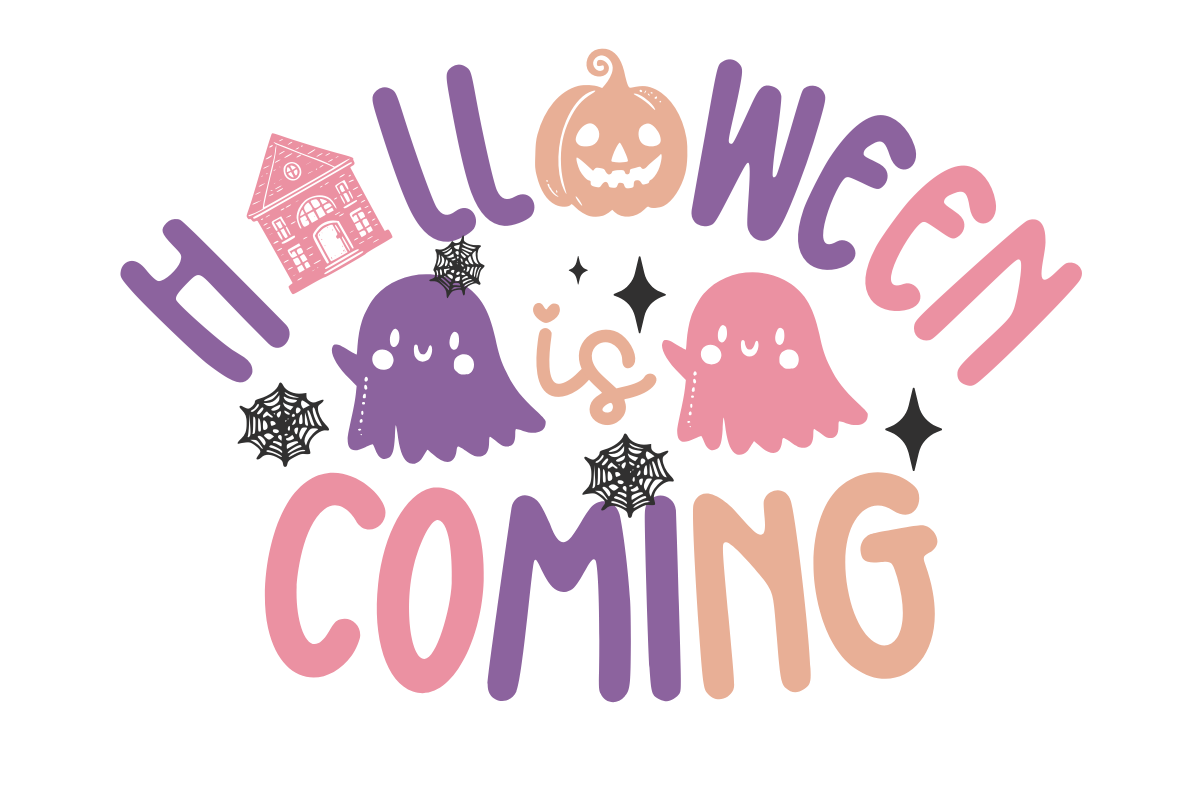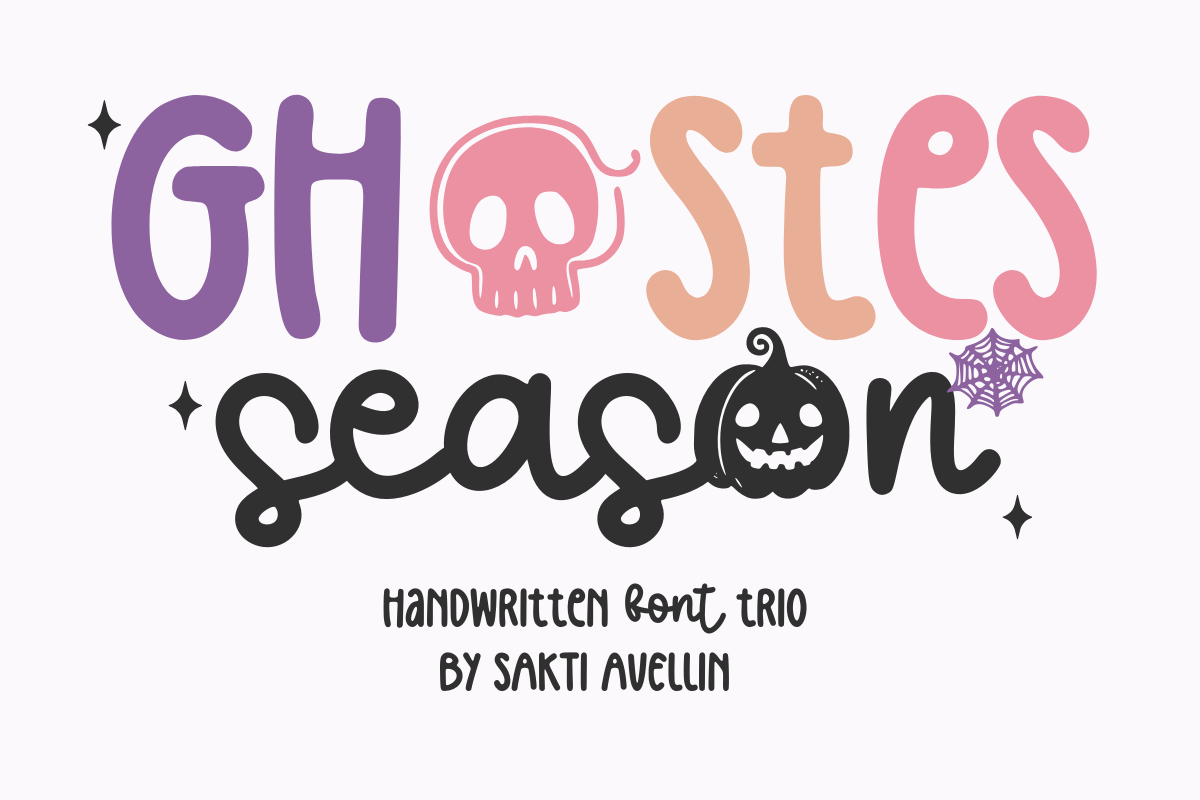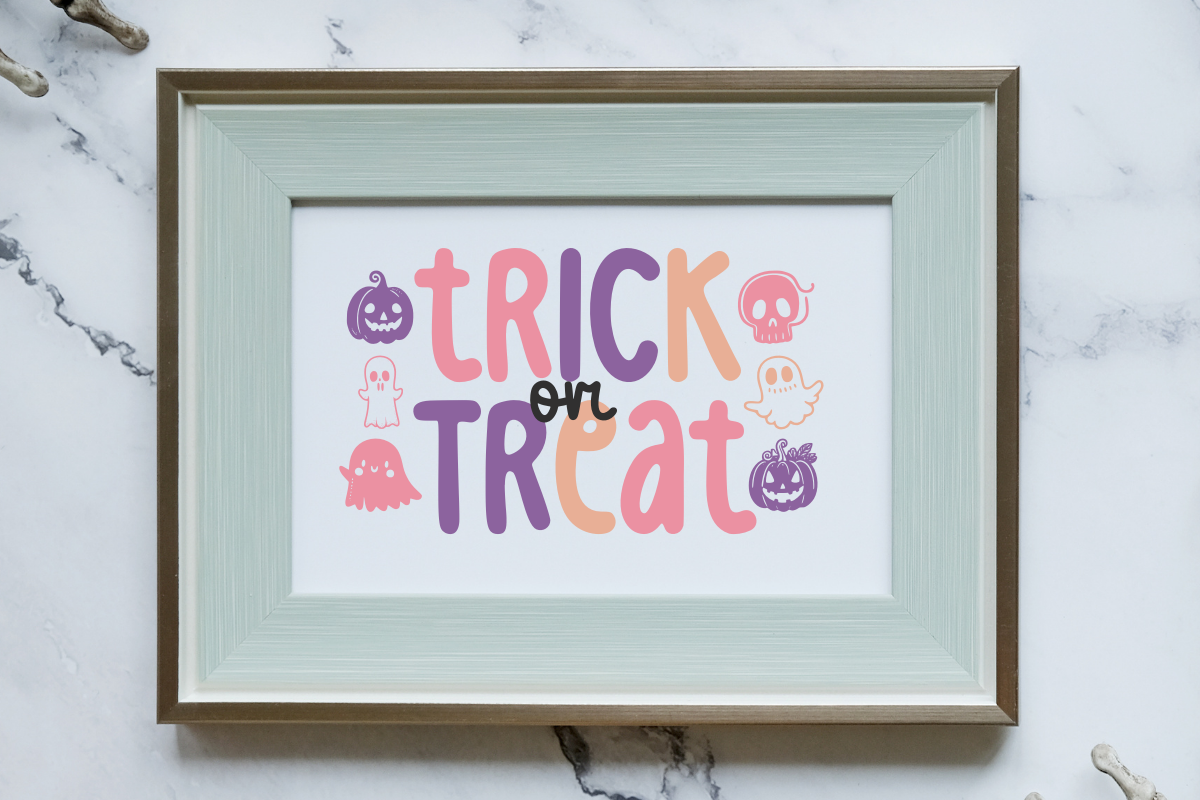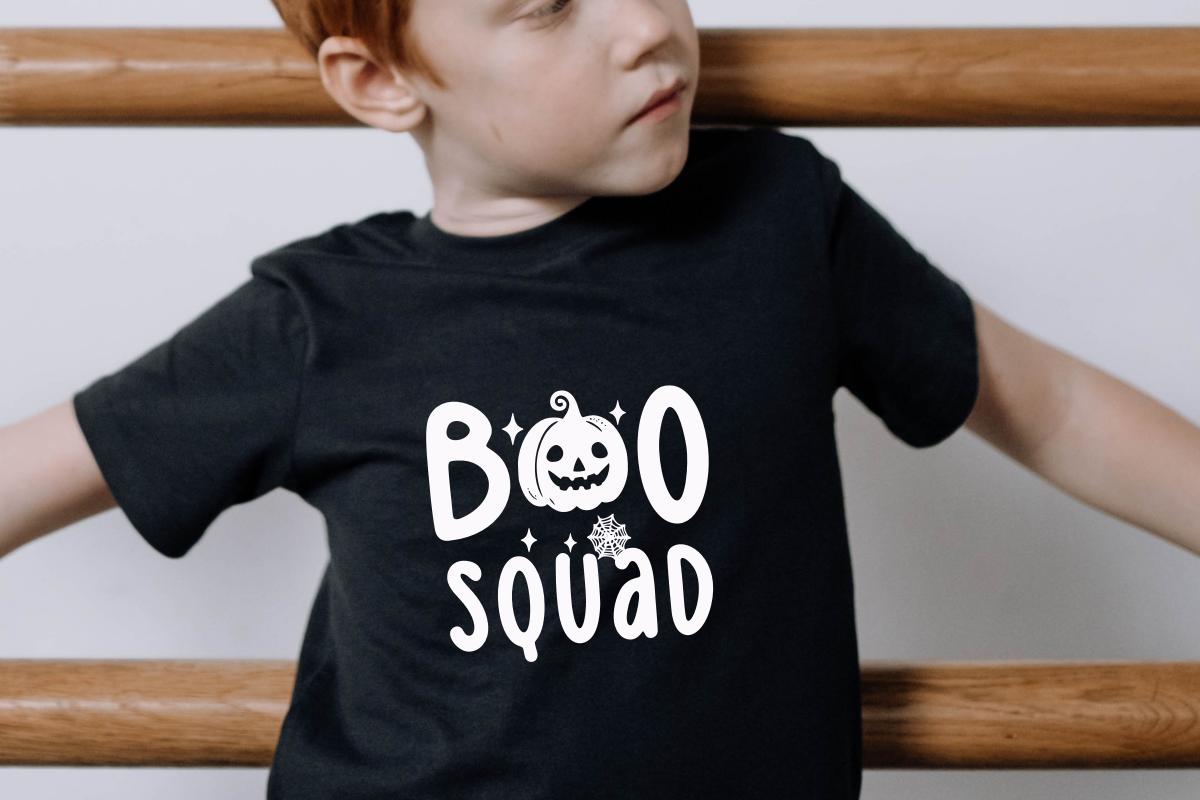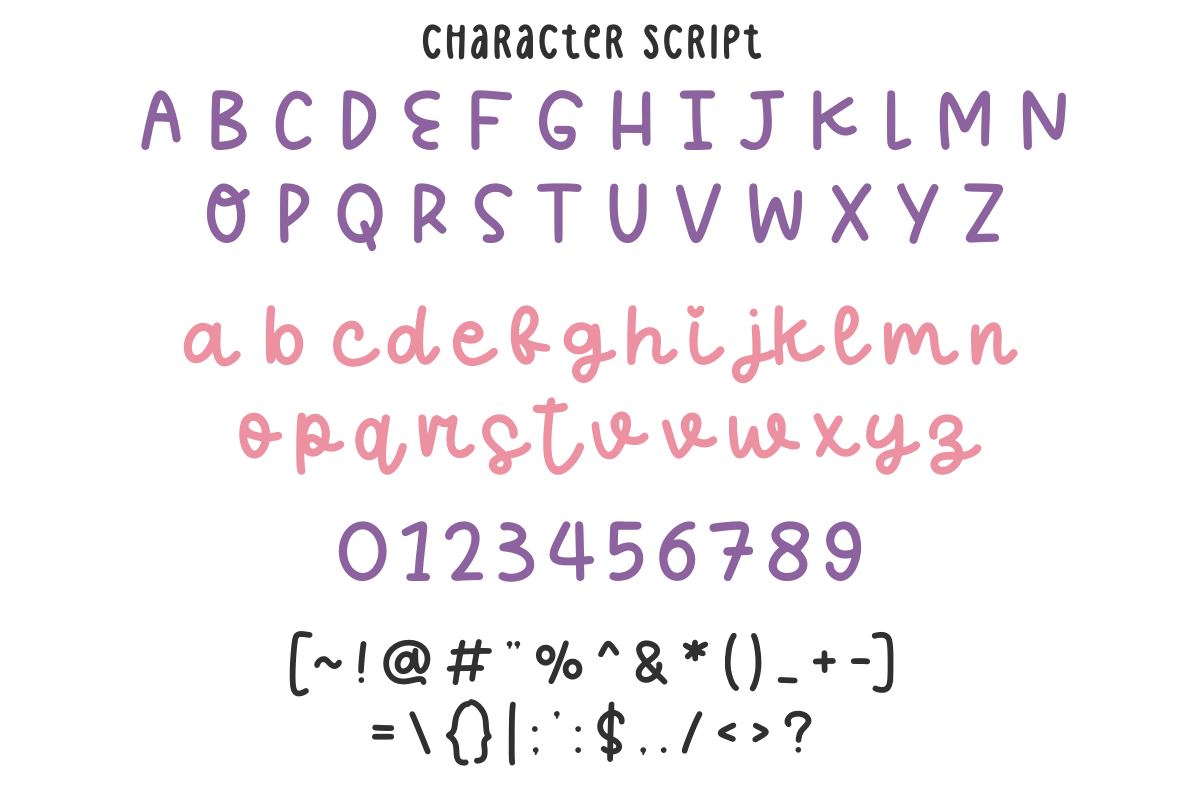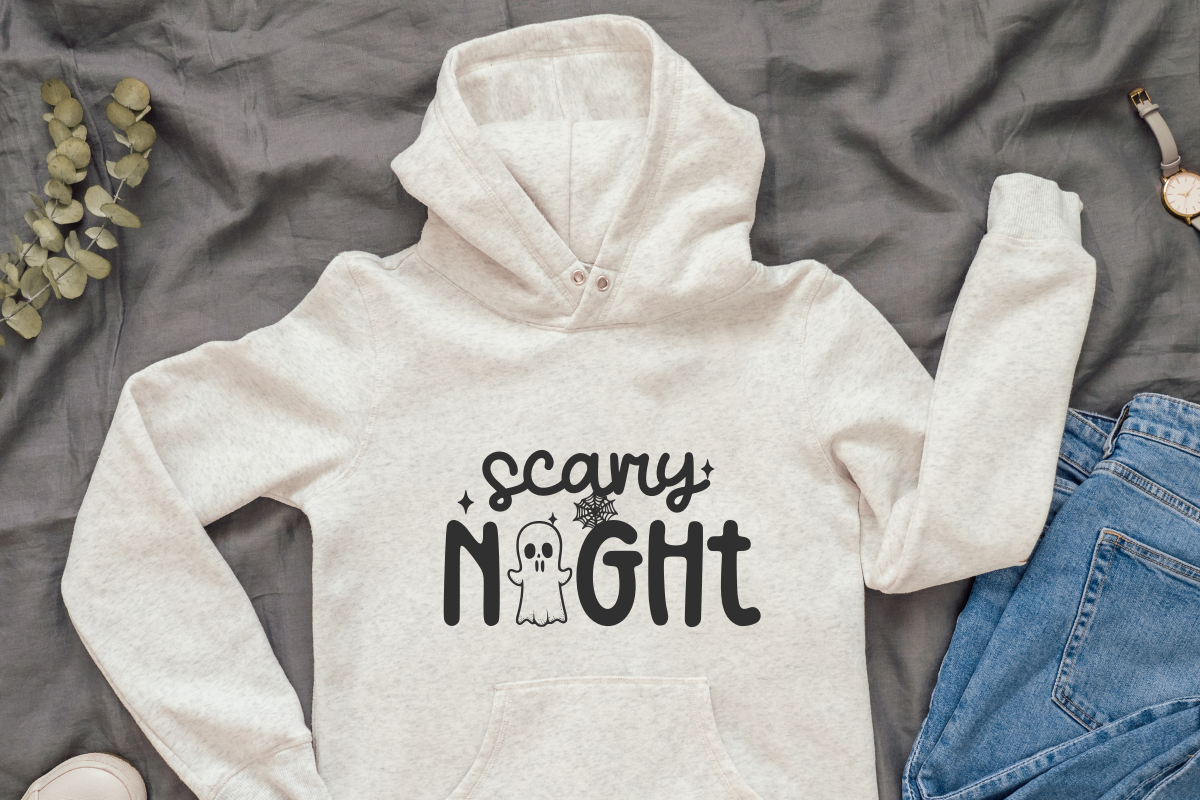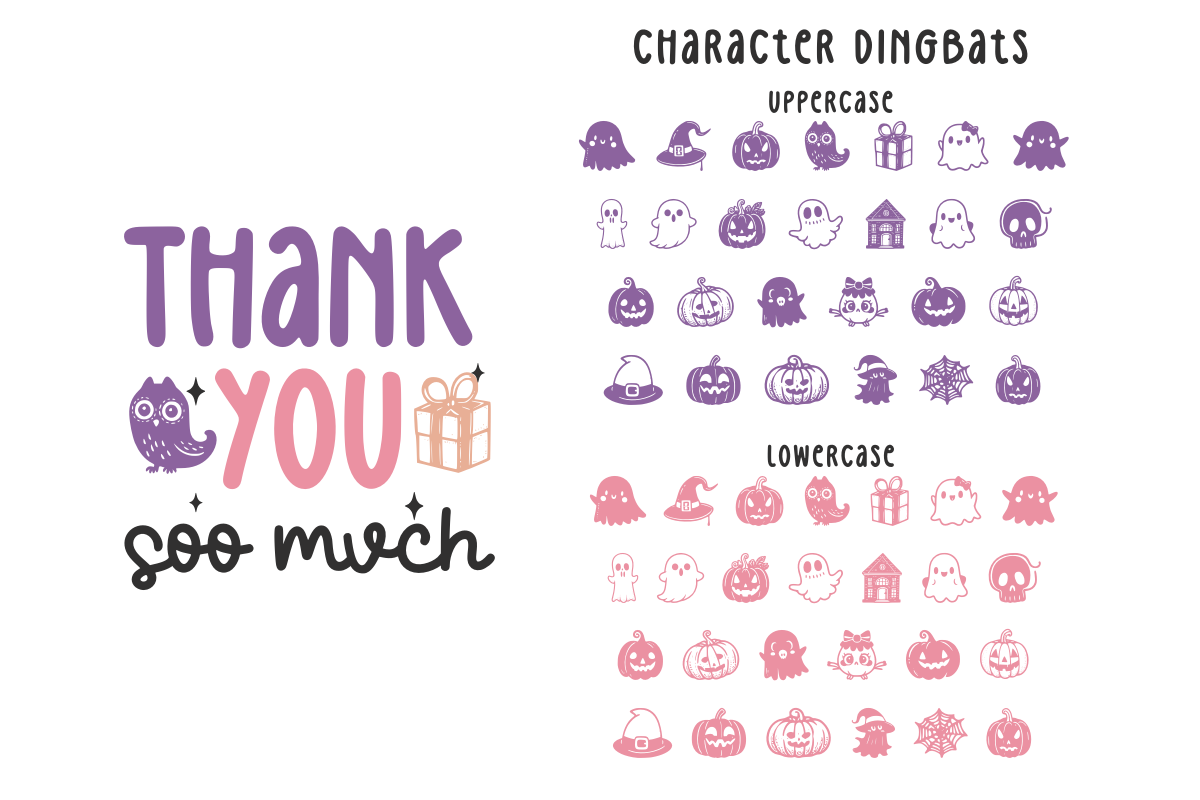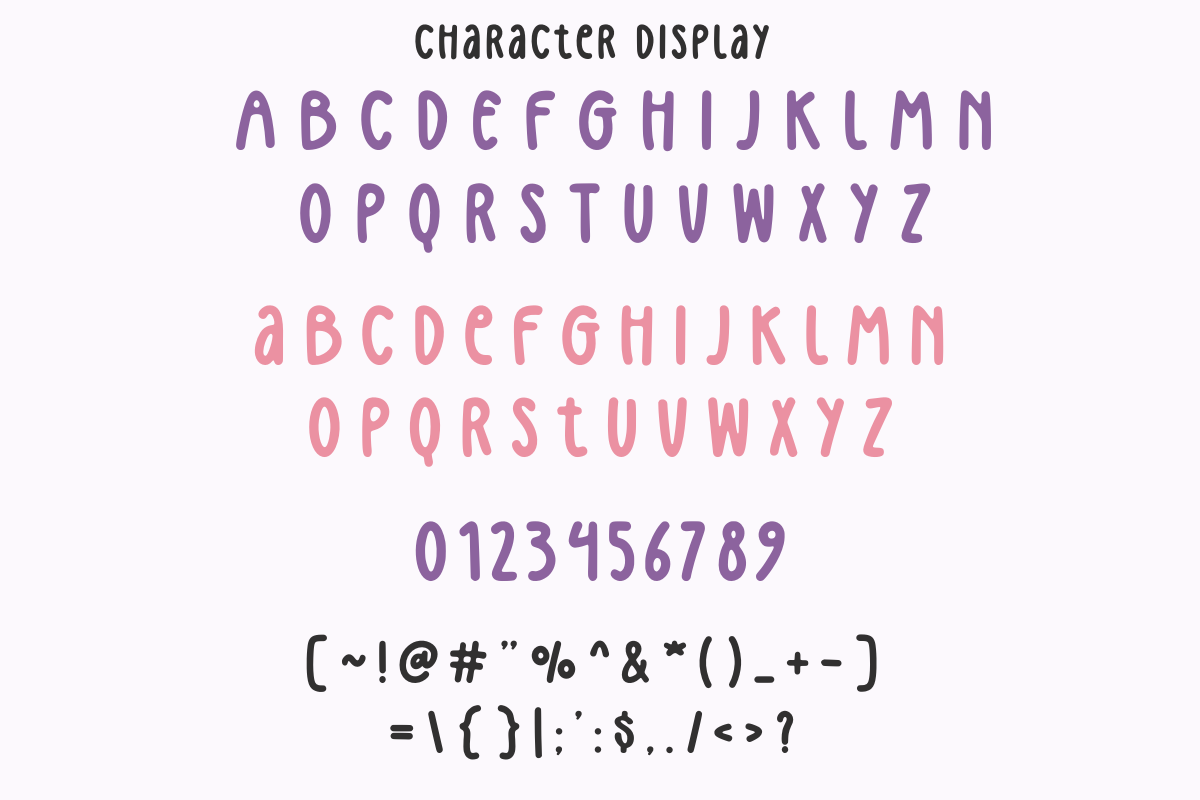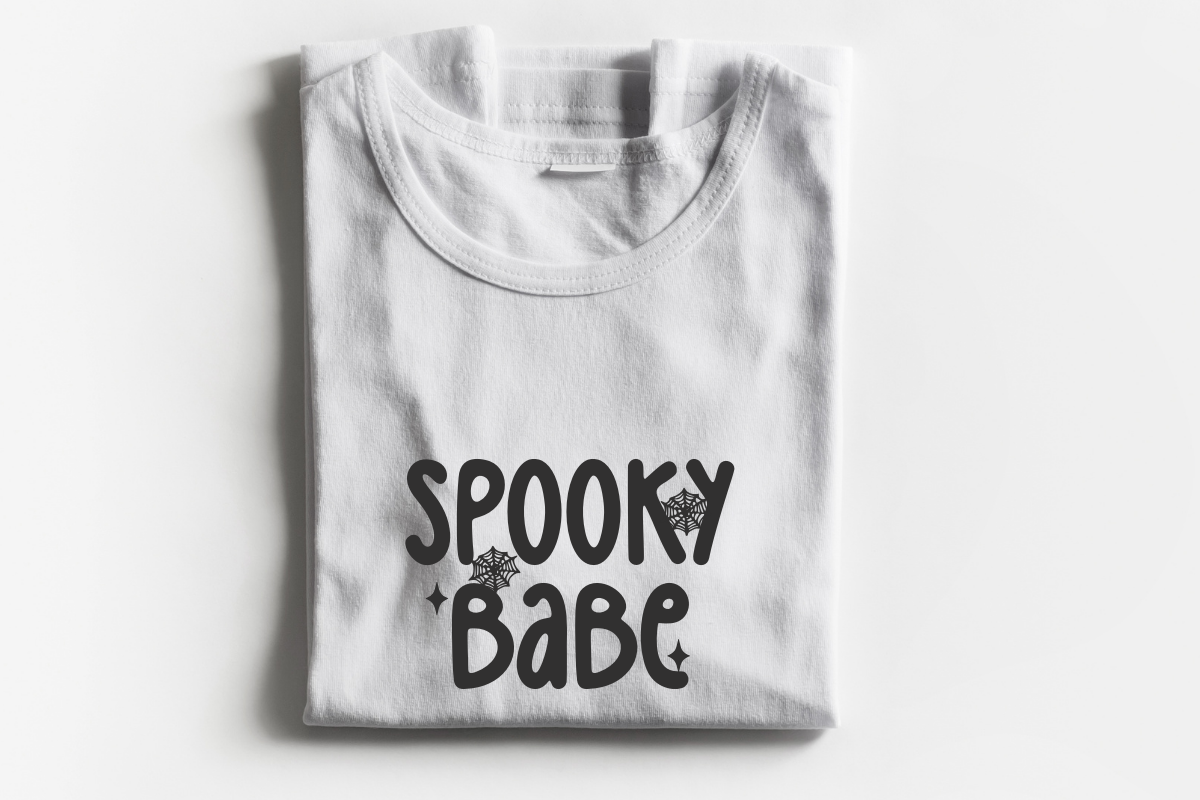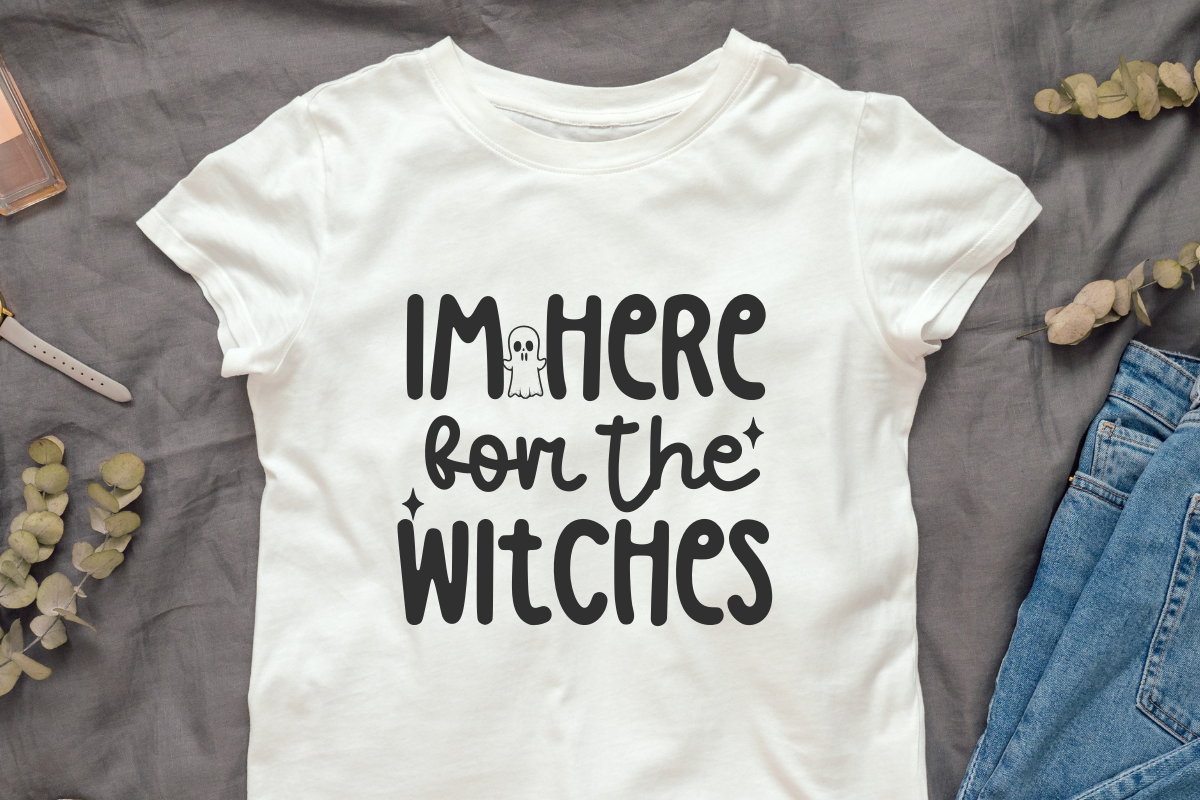
Ghostes Season - Handwritten Font
Ghostes Season is a spectacular and versatile handwritten font trio that perfectly blends cute, spooky, and modern aesthetics for the Halloween and Fall season. This seasonal font includes a chunky display font, a smooth script font, and charming doodle elements, making it ideal for creative font combinations. It is essential for Halloween party invitations, spooky kids' branding, fun t-shirt designs, autumn event graphics, and engaging social media posts. Its playful and clear style ensures it is a powerful display typeface for crafters and designers seeking a unique, youthful horror vibe. Capture the spirit of the haunted season with this delightful Halloween mix font!